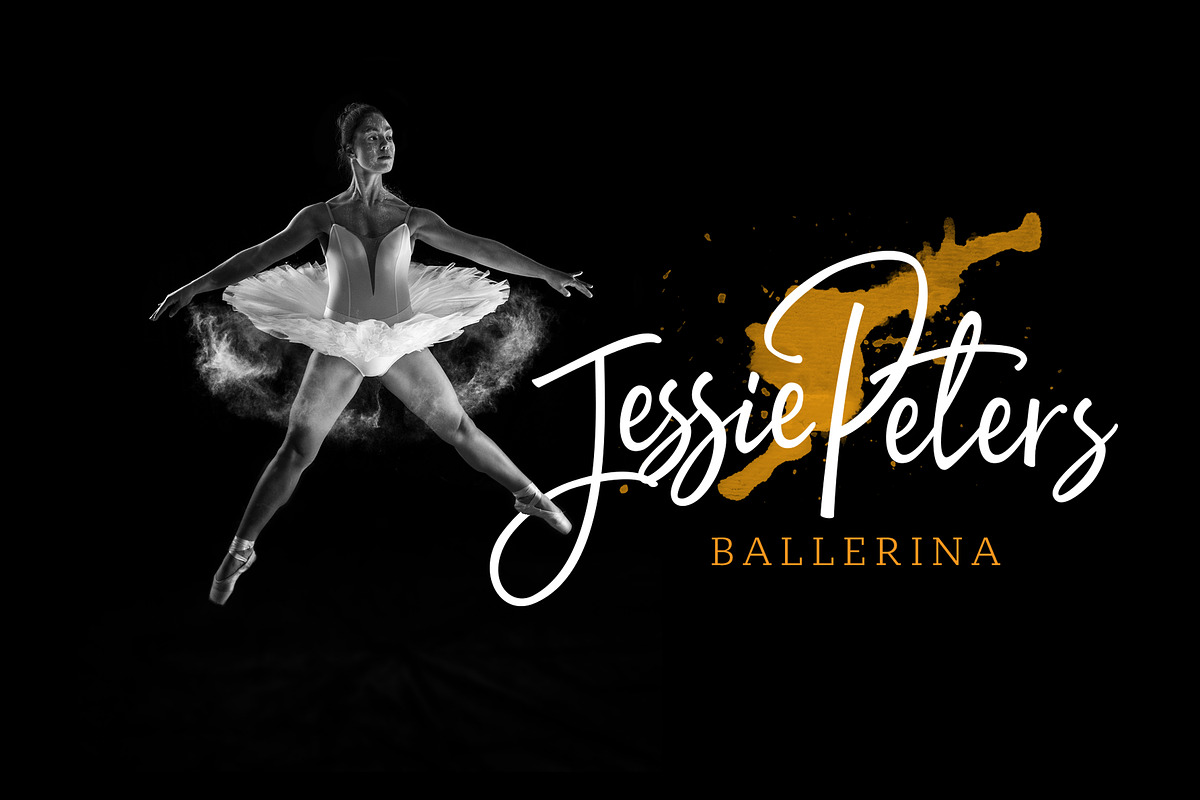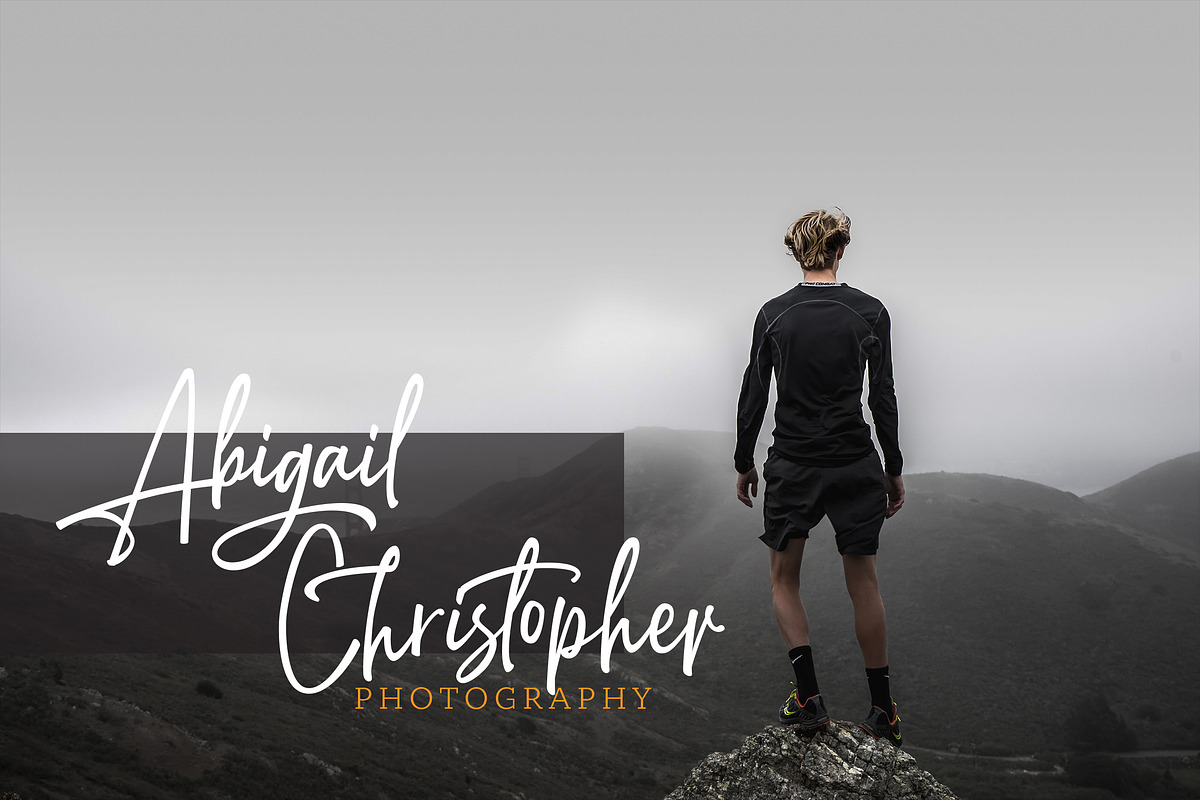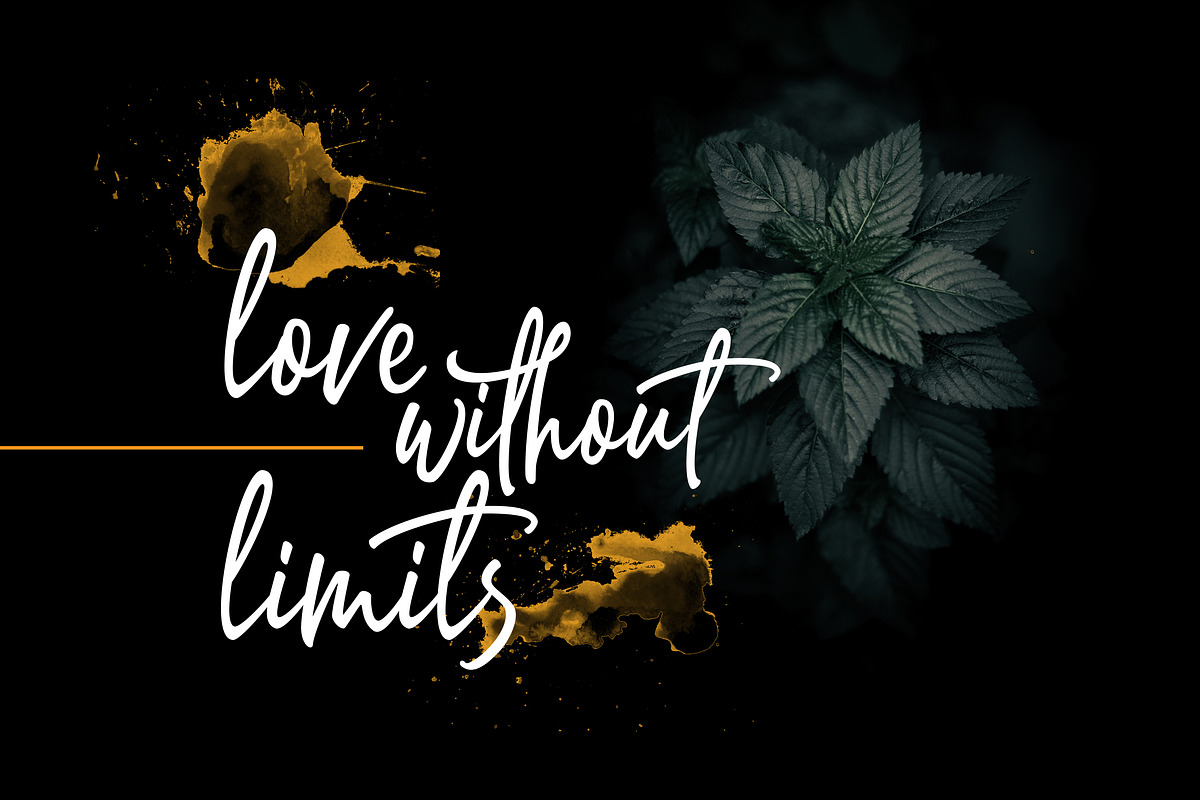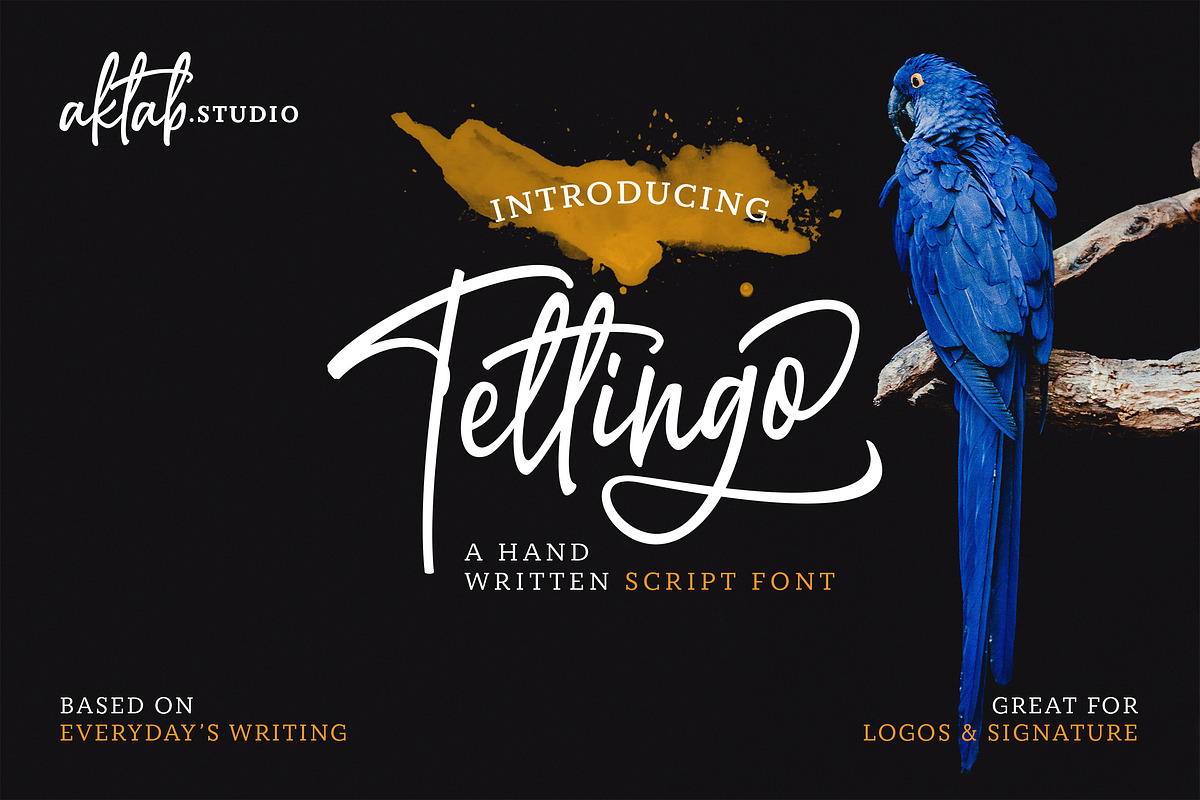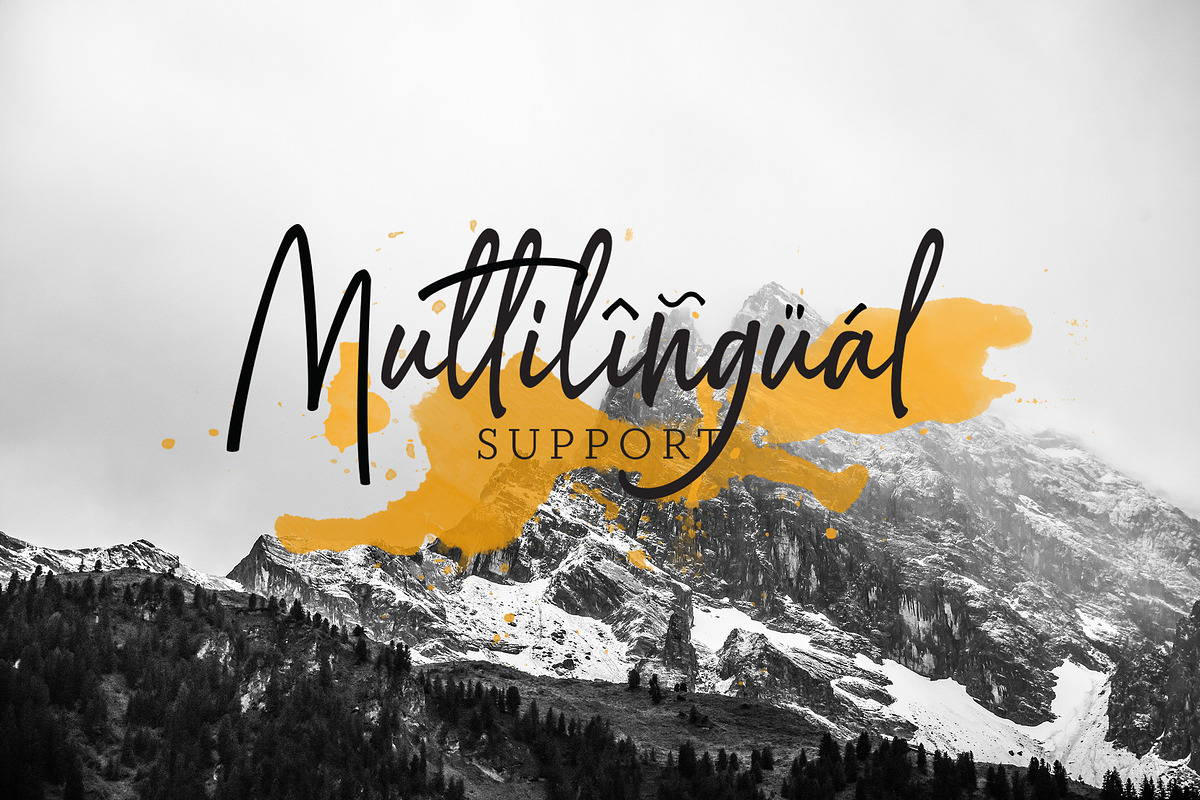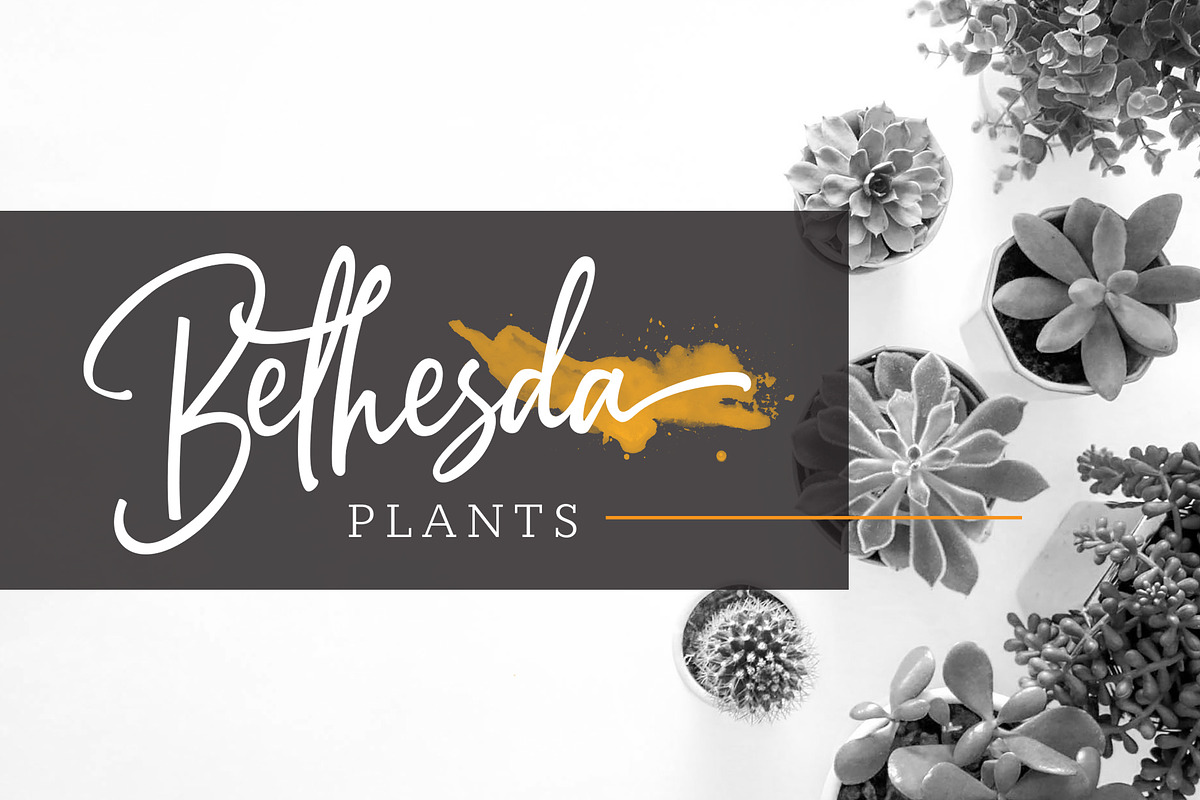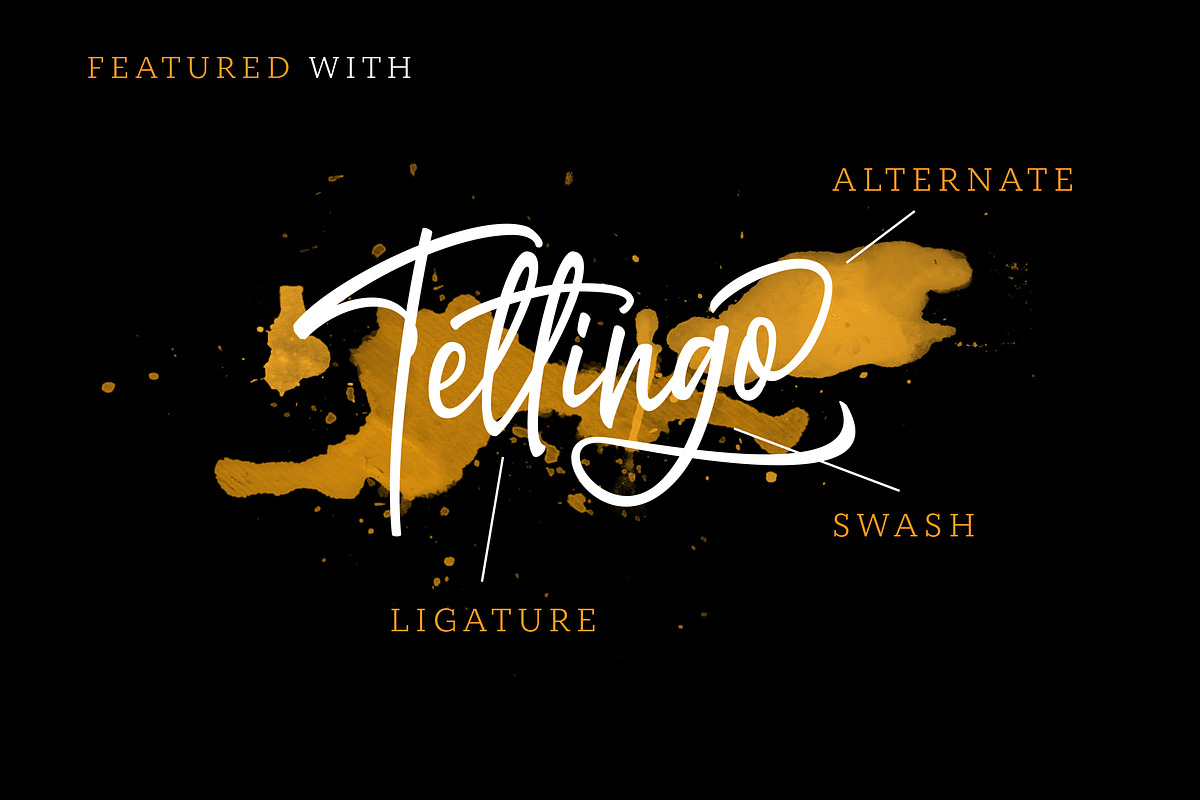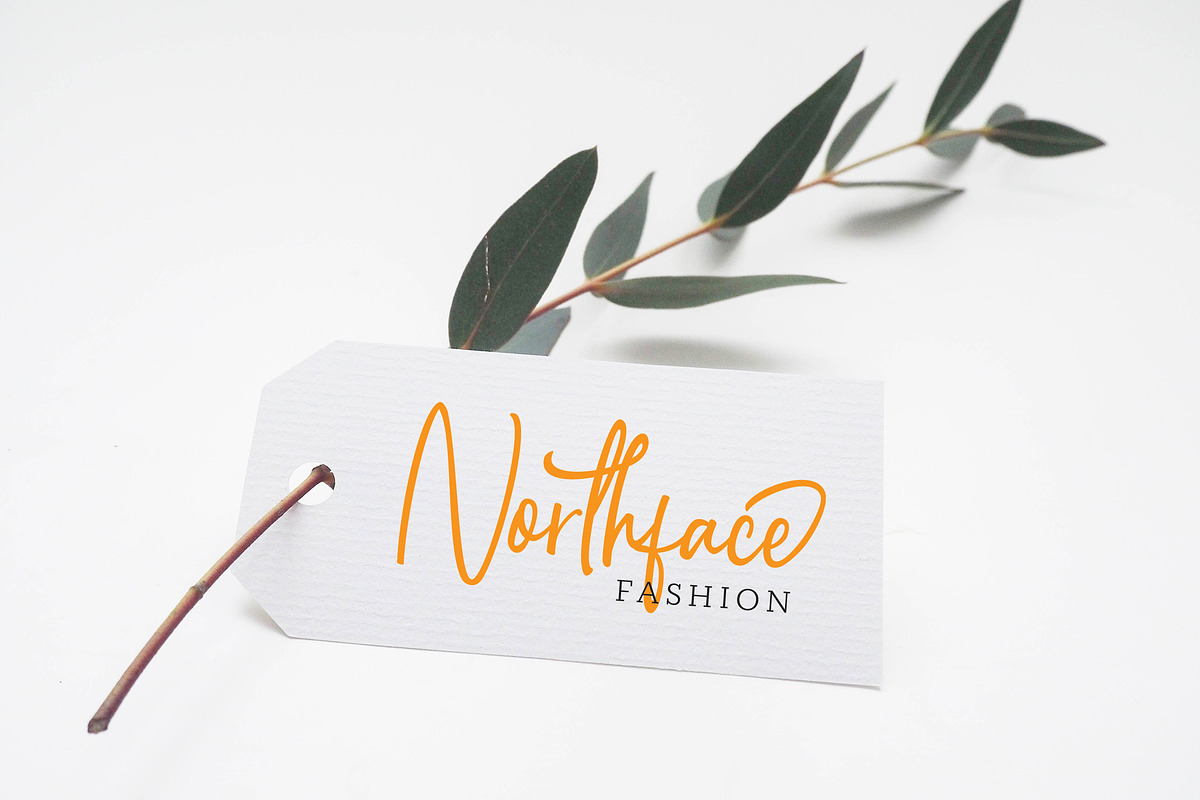
Tettingo Writing Font
Tettingo is a handwritten script font based on everyday's writing. This collection of scripts is perfect for personal branding, wedding, magazine, card design and many more design what you want.
Basic Character Uppercase & Lowercase
Numeric and punctuation
Foreign language support
Alternates & Ligatures
Tettingo Writing Font by Aktab Studio fits naturally into Branding, posters, packaging, typography.